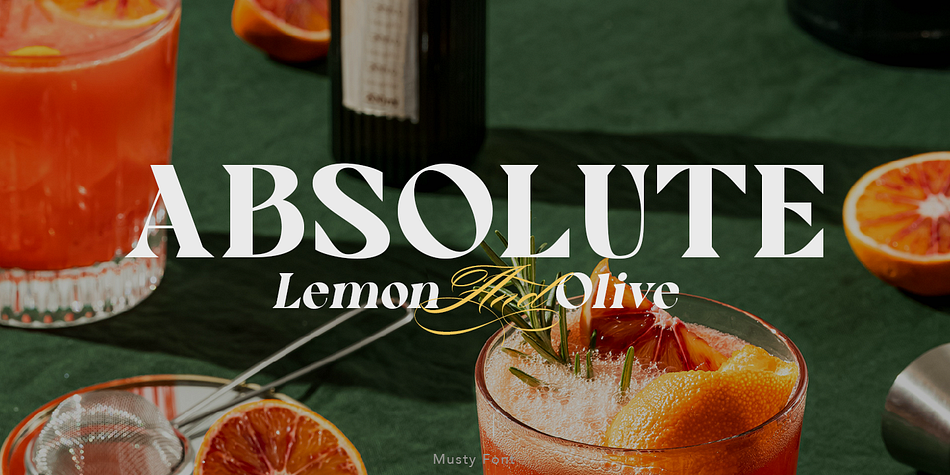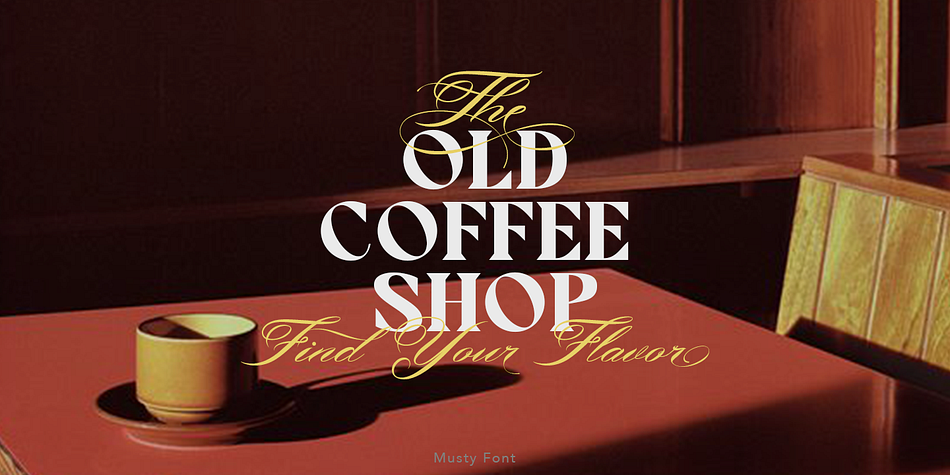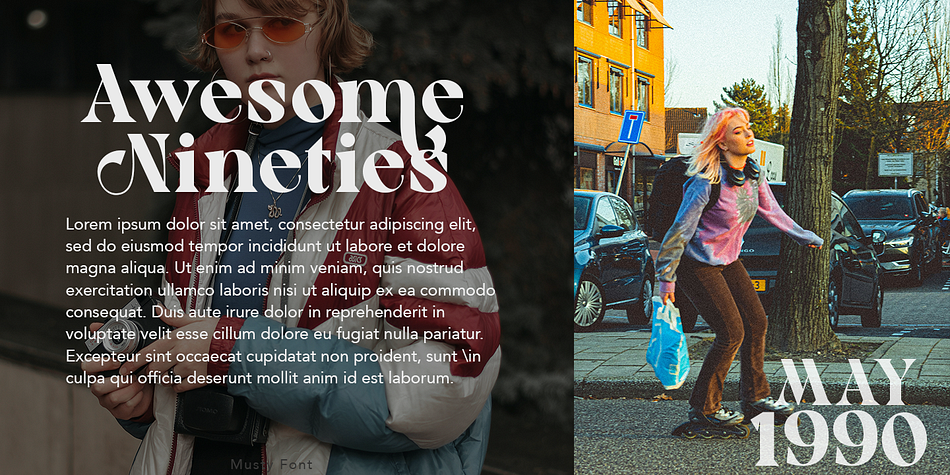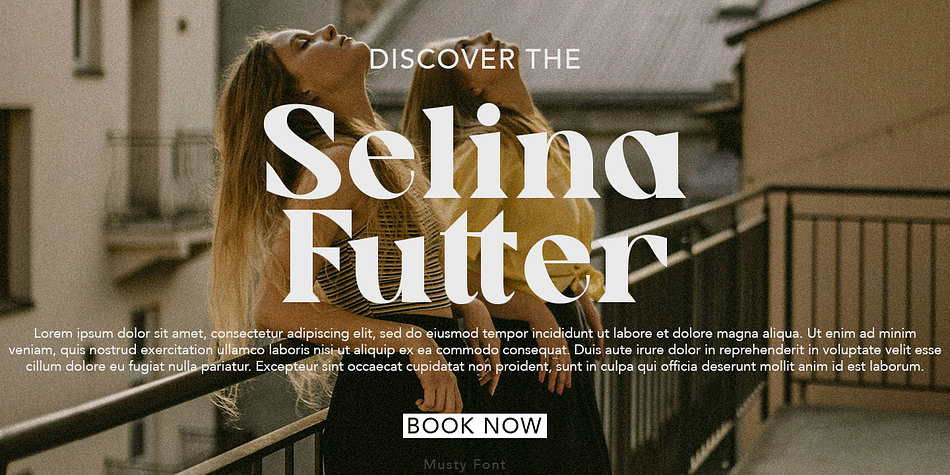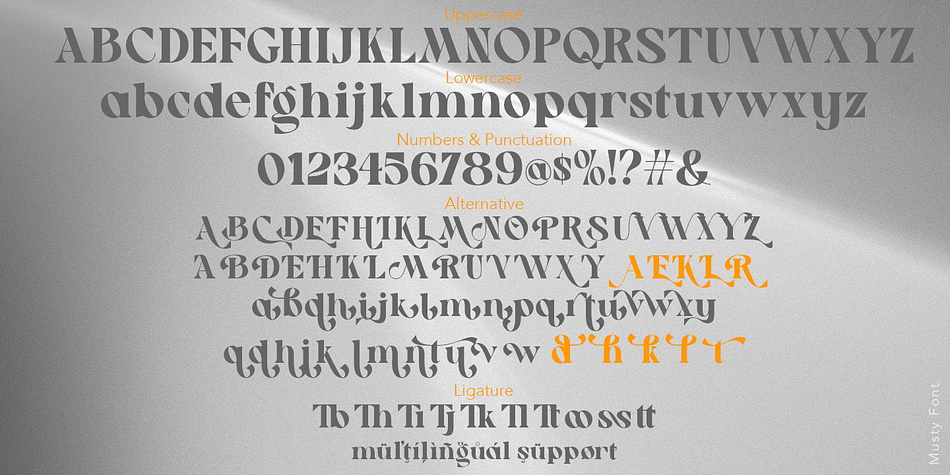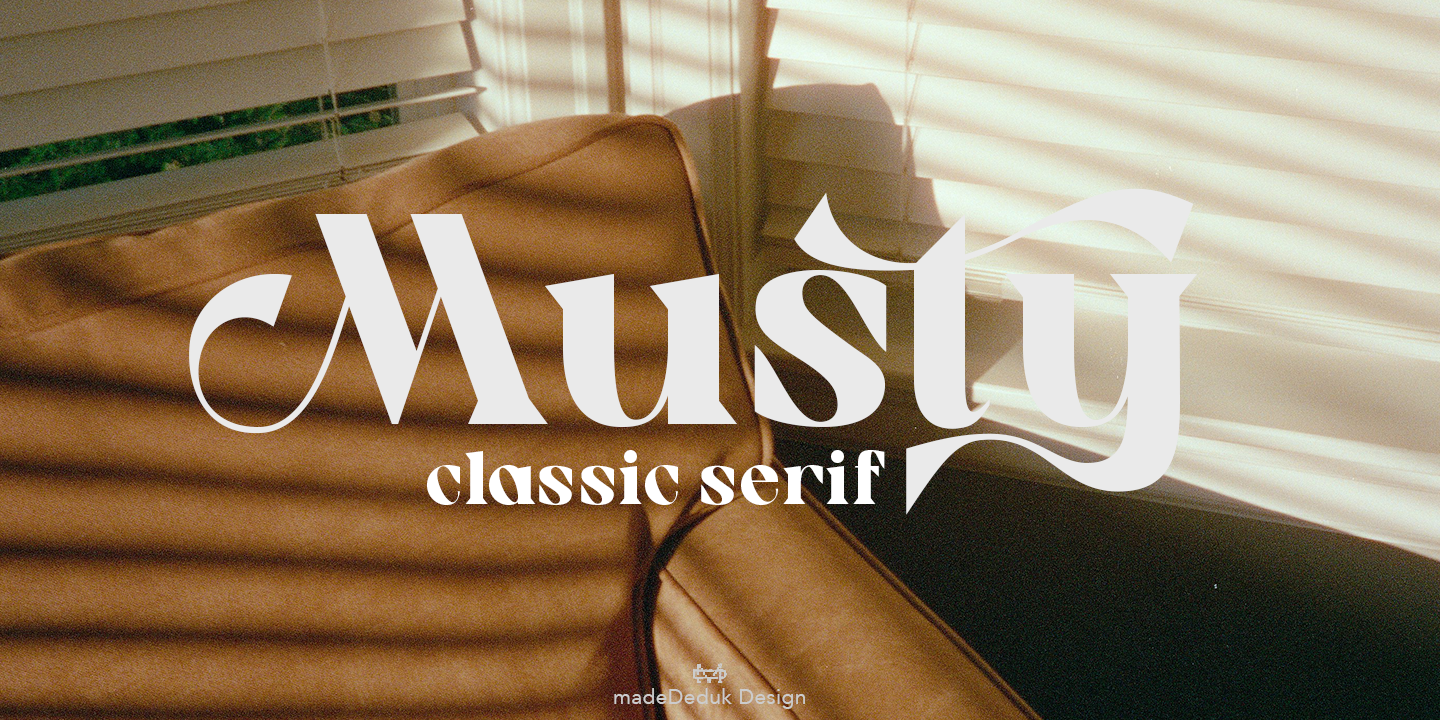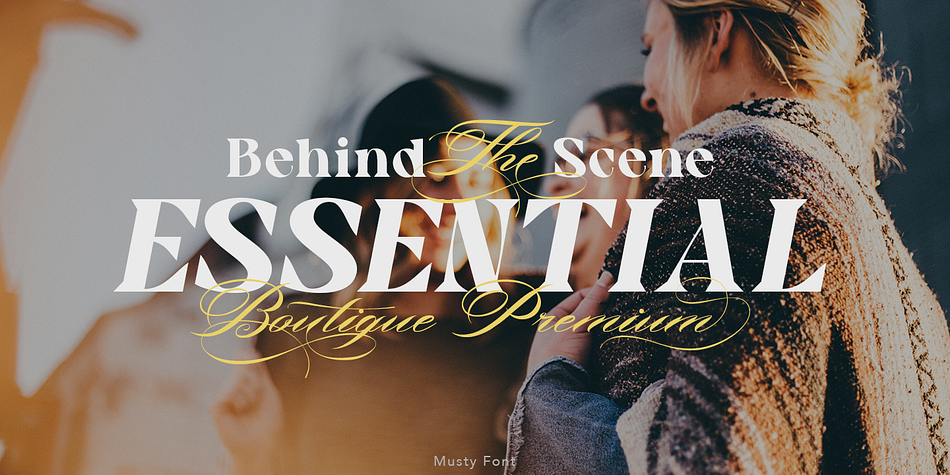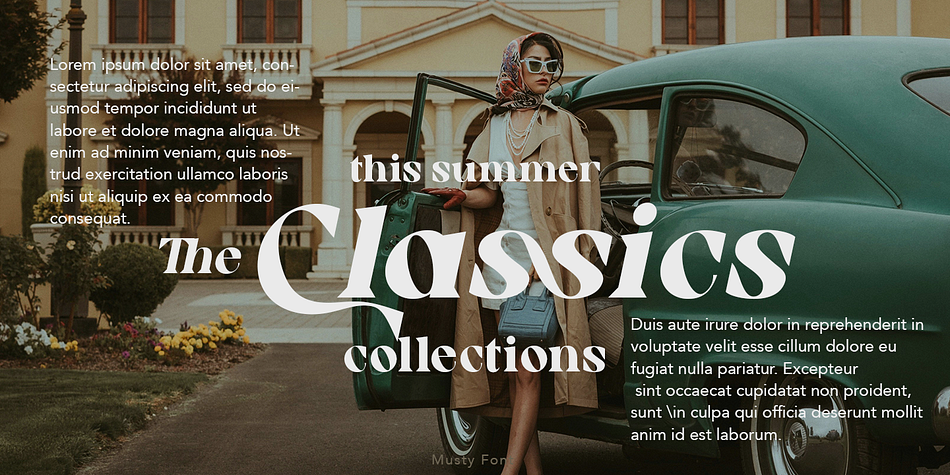
Musty Classic Serif
Designed by Suandana Ipandemade, Musty Classic Serif is a display serif font family. This typeface has two styles and was published by madeDeduk.
Musty is a classic serif, come with single weight, legible and expressive shapes. A lot of stylish alternates characters and ligature will makes this font suitable for your any project design.
- Alternative
- Ligature